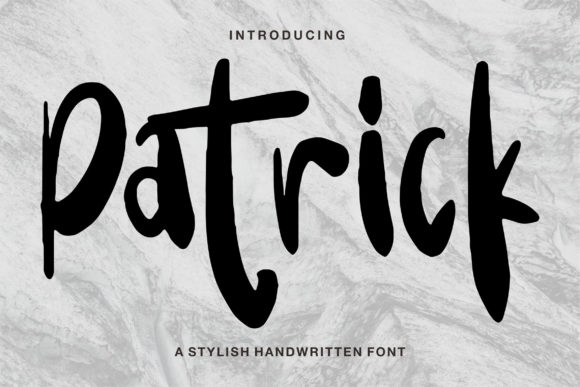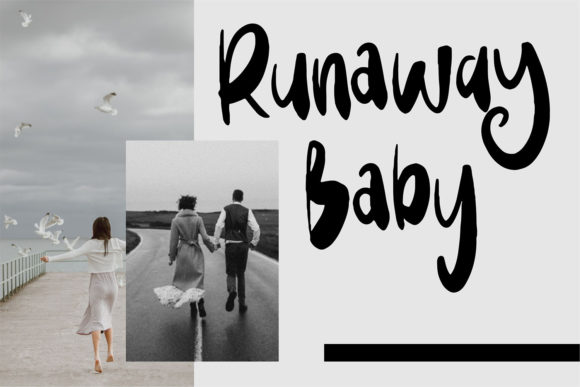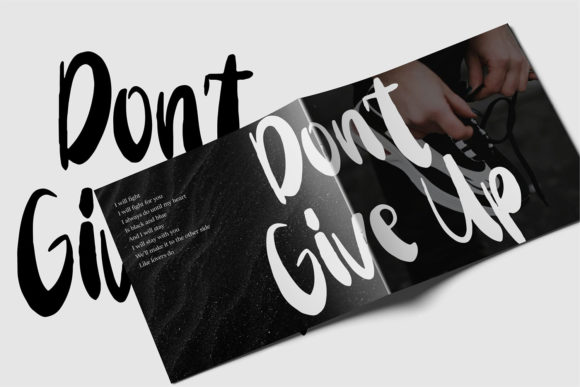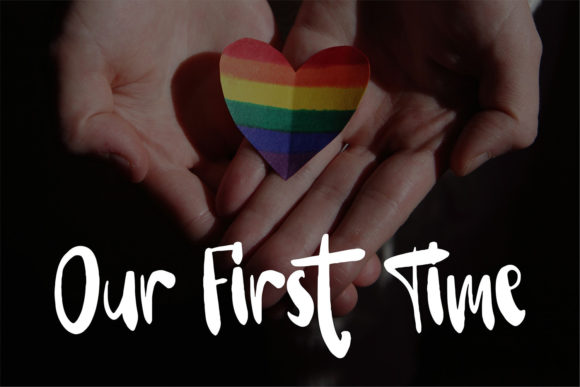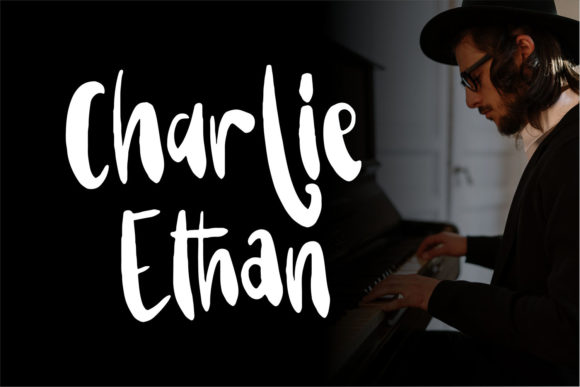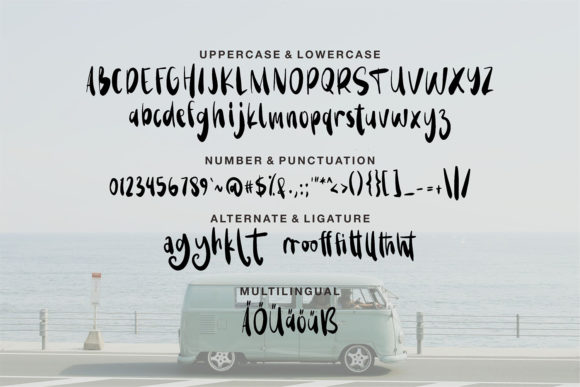
Patrick Font
About Patrick Font
Patrick is a bold, asymmetrical and trendy handwritten font. It is the best choice for creating eye catching logos, branding and quotes. Every letter has a unique and beautiful touch, which will make your design come alive!